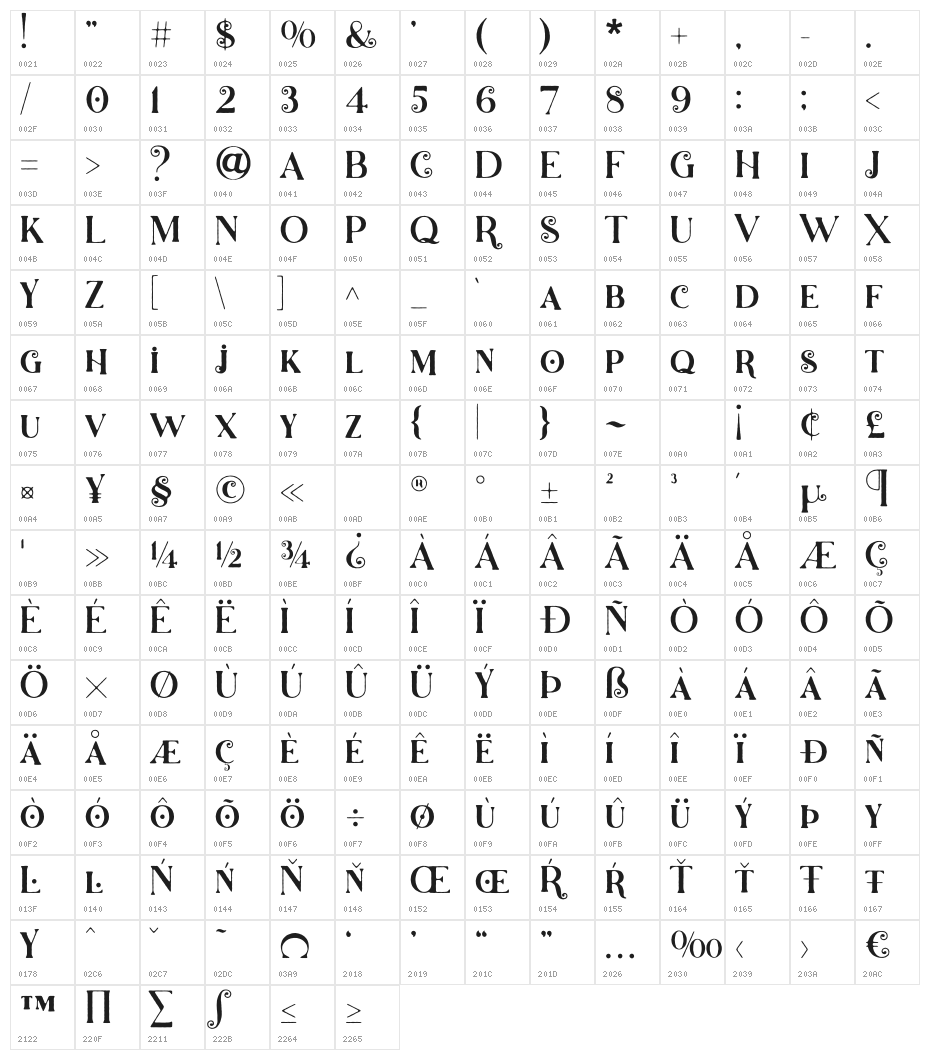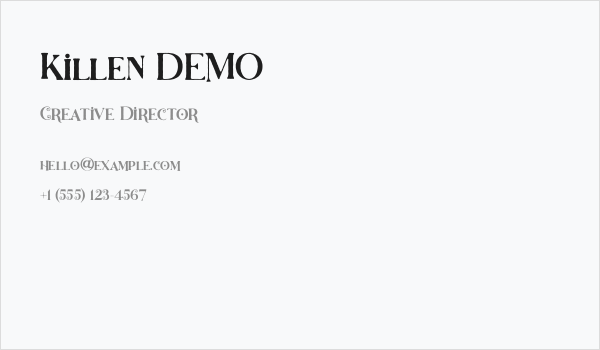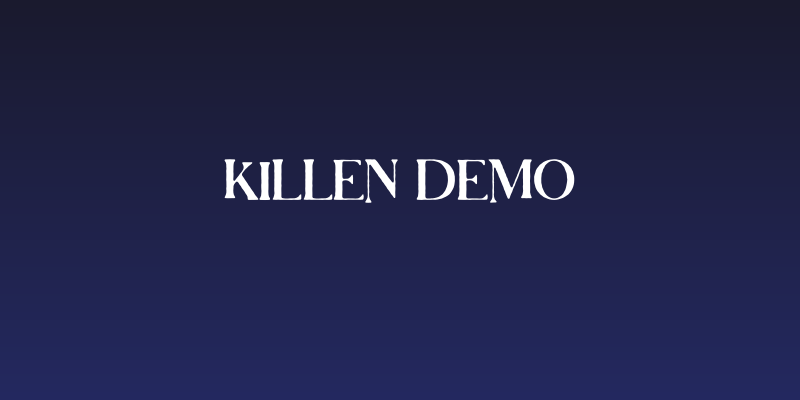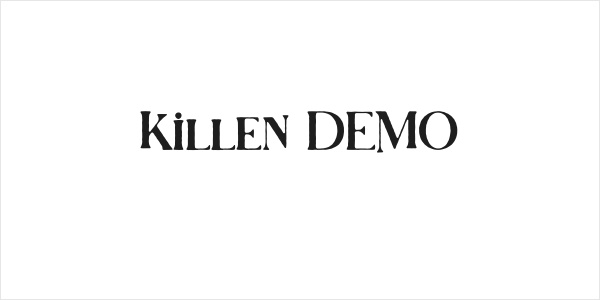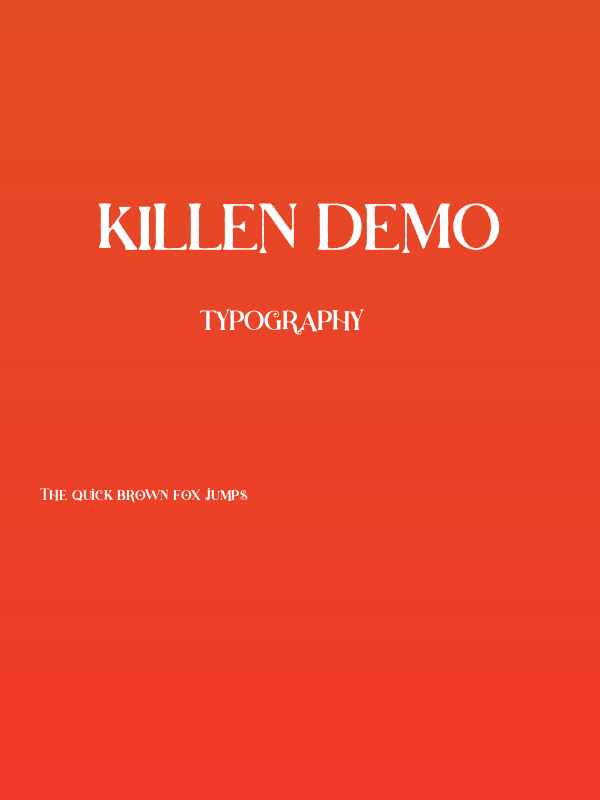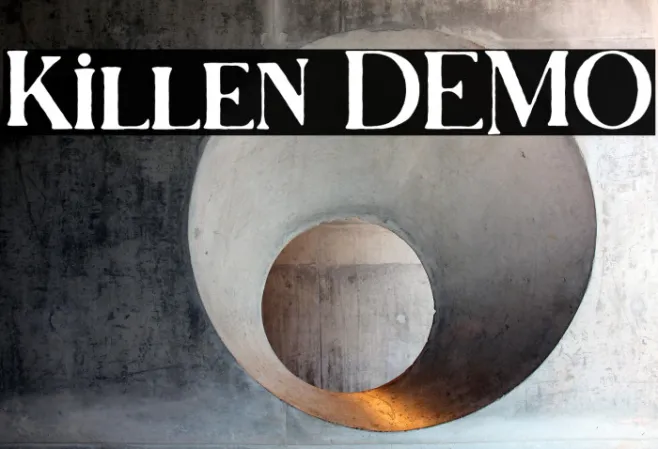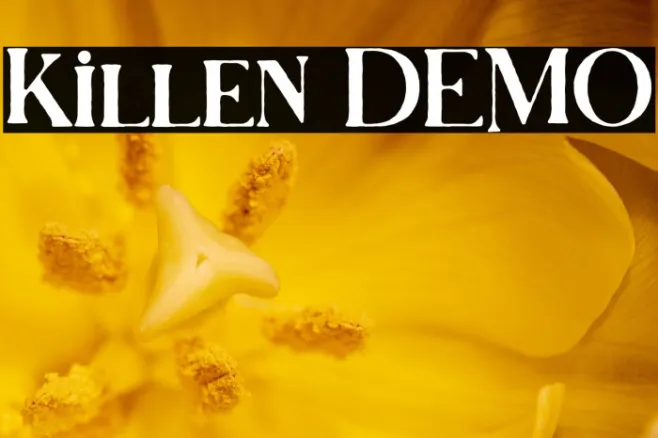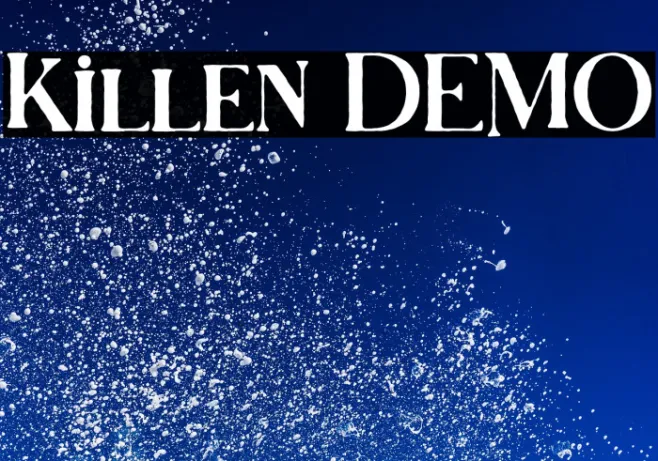
Killen DEMO Font
Killen DEMO Description
This font features a whimsical and decorative style with unique swirls and curls integrated into the characters, giving it a playful and artistic appearance. The uppercase letters are bold and distinct, with some characters like 'G' and 'Q' incorporating elegant loops. The lowercase letters maintain the decorative theme, with certain letters like 'g' and 'y' having extended tails. The numerals are equally stylized, with numbers like '3' and '8' featuring intricate curves. The special characters complement the overall design, adding to the font's charm and versatility. This font's artistic flair makes it suitable for creative projects that require a touch of elegance and uniqueness.
| Use Case | Headlines, Logos, Artistic projects |
| Proposed Projects | Ideal for invitations, greeting cards, posters, and branding that require a creative and artistic touch. |